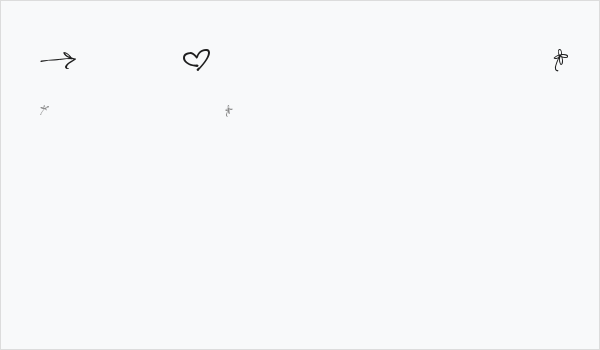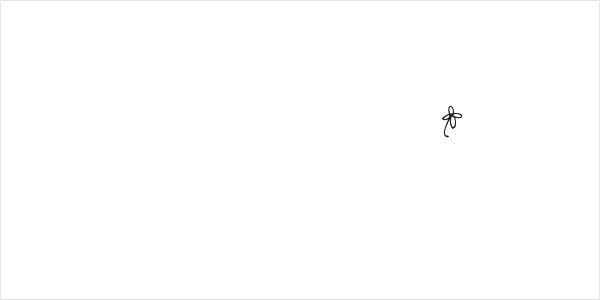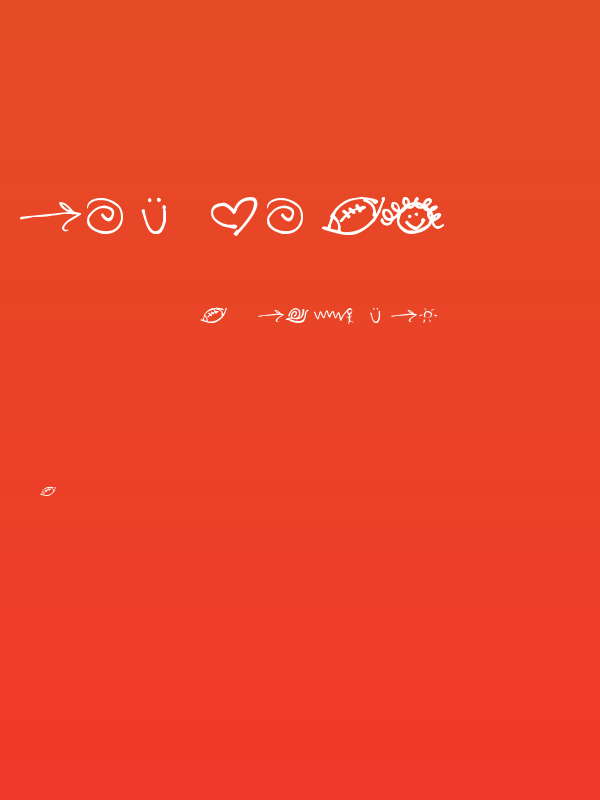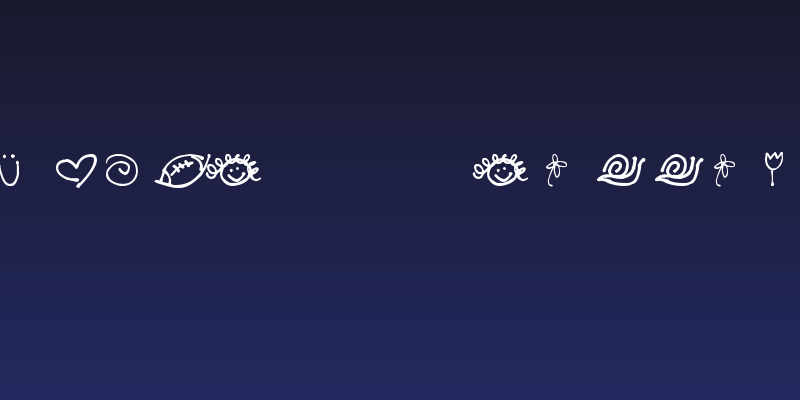
Pea Betsy's Doodles Font
Pea Betsy's Doodles Description
This is a whimsical and playful collection of doodles, featuring a variety of charming and quirky illustrations. The designs include smiley faces, hearts, stars, spirals, cupcakes, suns, and other delightful symbols. Each doodle is hand-drawn with a casual, carefree style that exudes a sense of fun and creativity. The strokes are uneven and organic, adding to the hand-crafted feel of the collection. These doodles are perfect for adding a touch of personality and charm to any project, making them ideal for creative and artistic endeavors.
| Overall Style | Playful and Whimsical |
| Use Case | Decorative elements, Art projects |
| Proposed Projects | Ideal for scrapbooking, greeting cards, children's book illustrations, and creative art projects. |